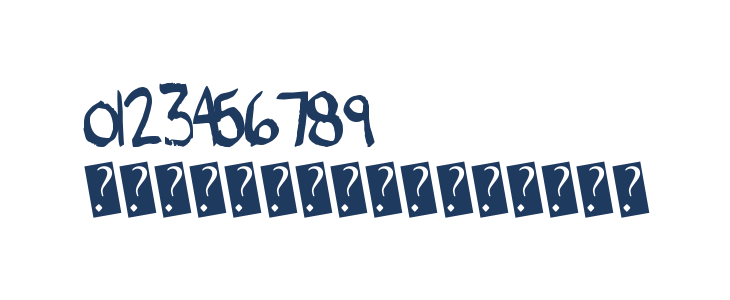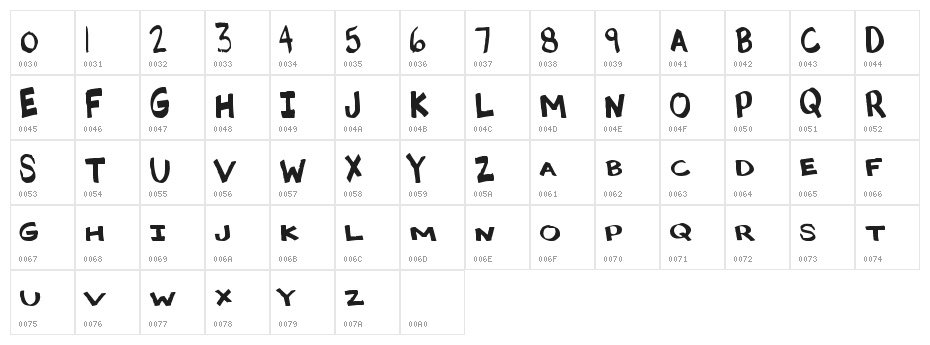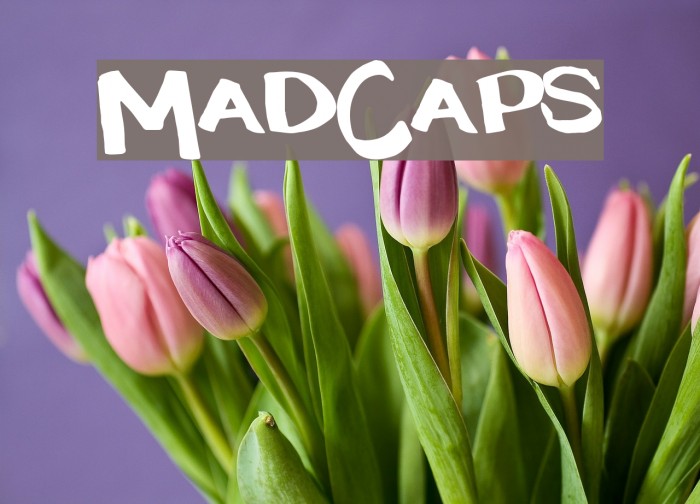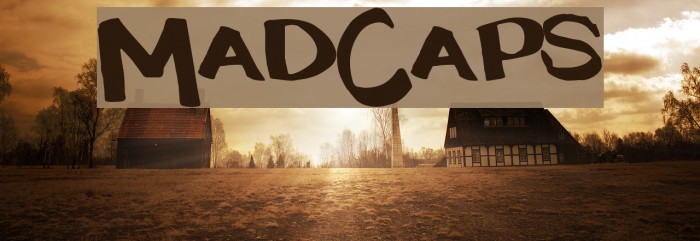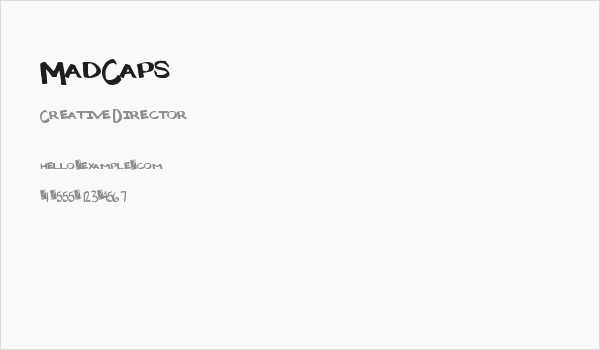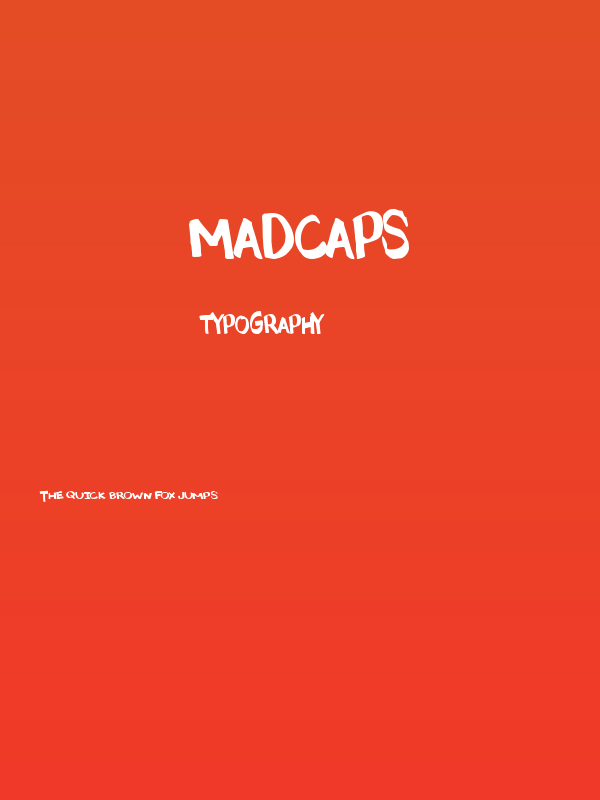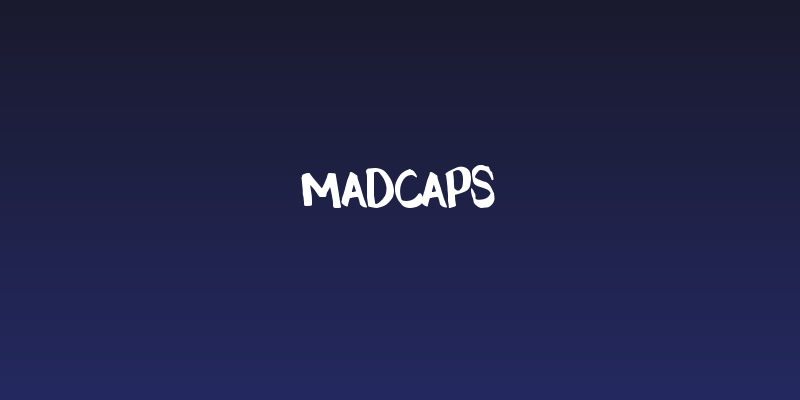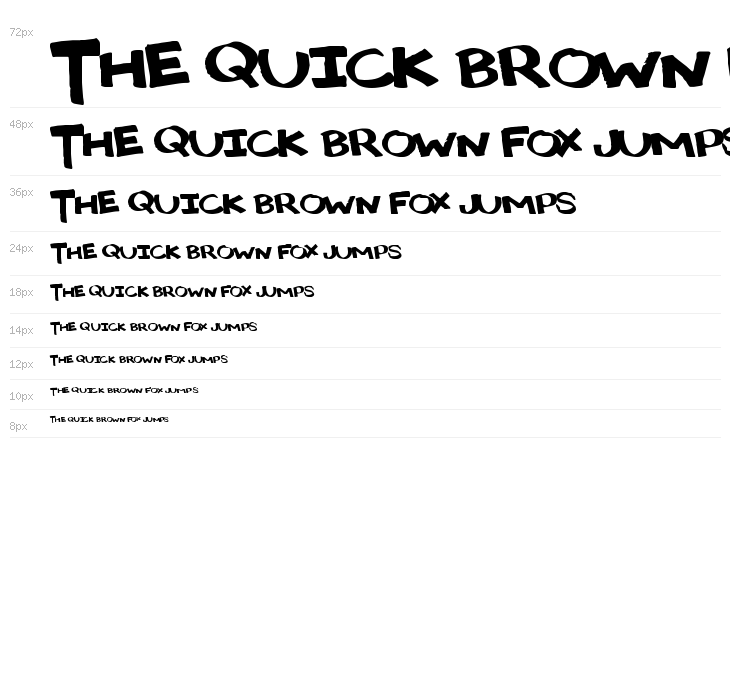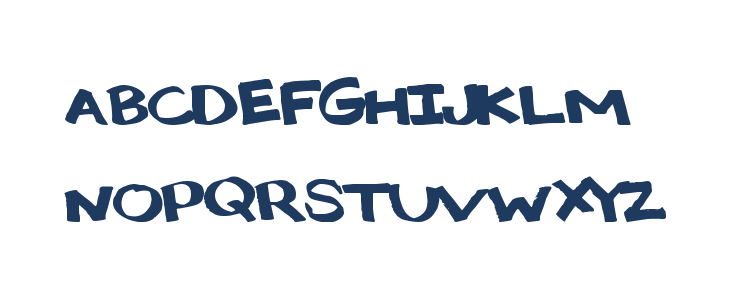
MadCaps Font
MadCaps Description
This font features a bold and playful style with a hand-drawn appearance. The letters are irregular and slightly tilted, giving them a dynamic and energetic feel. The uppercase and lowercase letters maintain a consistent style, with thick strokes and rounded edges. The numbers follow the same playful design, adding to the overall whimsical aesthetic. Special characters are creatively designed, enhancing the font's unique personality. This font is perfect for projects that require a fun and informal touch.
| Proposed Projects | Ideal for children's books, comic strips, playful branding, and informal event invitations. |